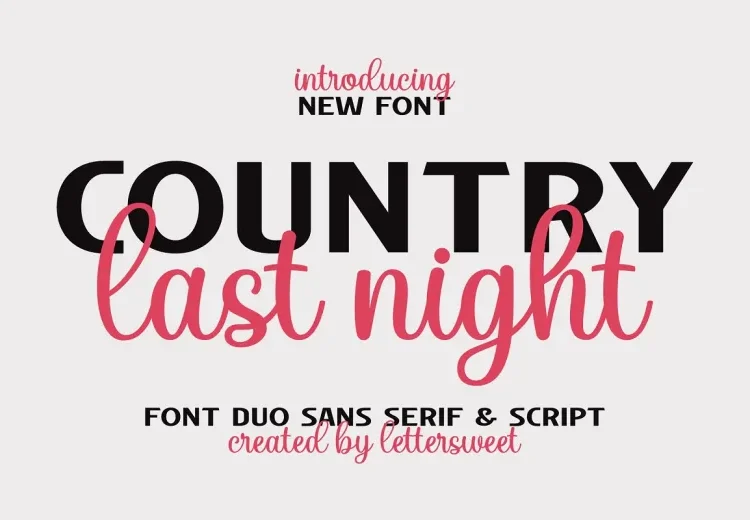
Country Last Night Font
Discover the refined elegance of Country Last Night, a font pairing that effortlessly combines charm with a modern twist. When used together, these fonts create a captivating synergy that elevates any design to extraordinary heights. Their harmonious blend adds a unique flair, making them perfect for a wide range of applications.
Country Last Night is ideal for branding initiatives, from logos and wedding design elements to social media posts and dynamic advertisements. Its versatility extends beyond these uses, enhancing labels, product packaging, and stunning photography watermarks. Whether you’re crafting beautiful invitations or elegant stationery, this font pair provides a distinctive accent that adds sophistication and appeal.